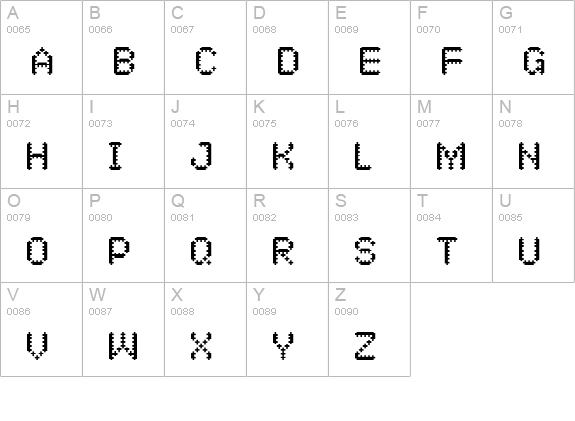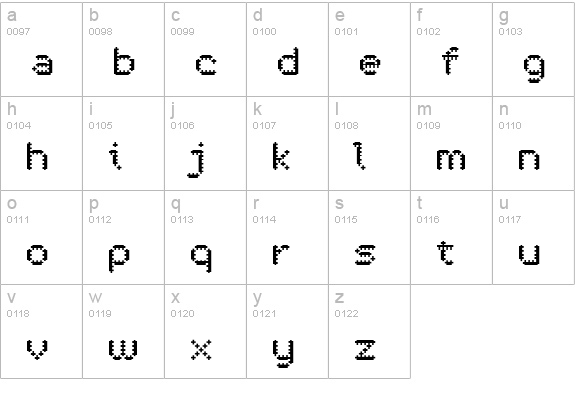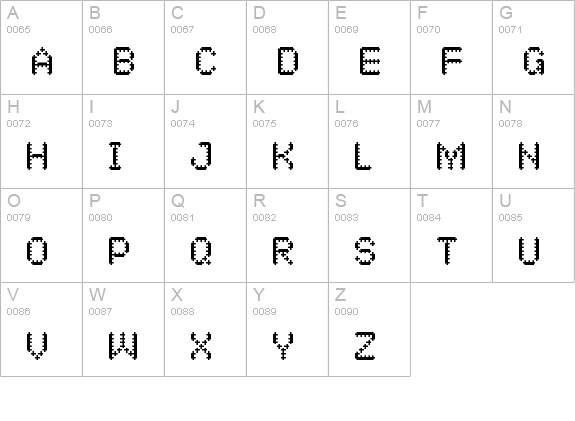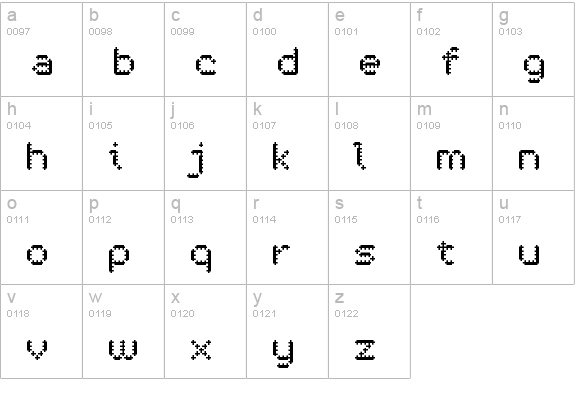
OneCross SemiBold is a sub-bold, structured variant in the OneCross typeface family \xE2\x80\x94 well suited to sub-headlines and emphasised passages.